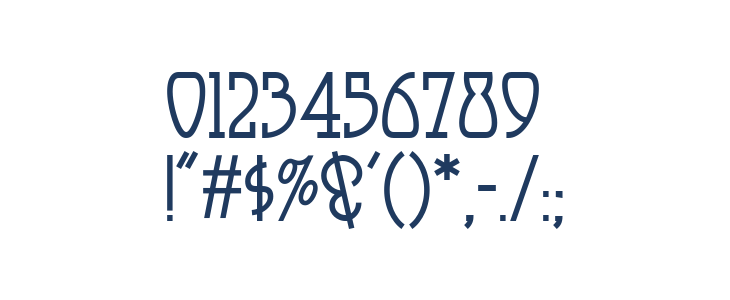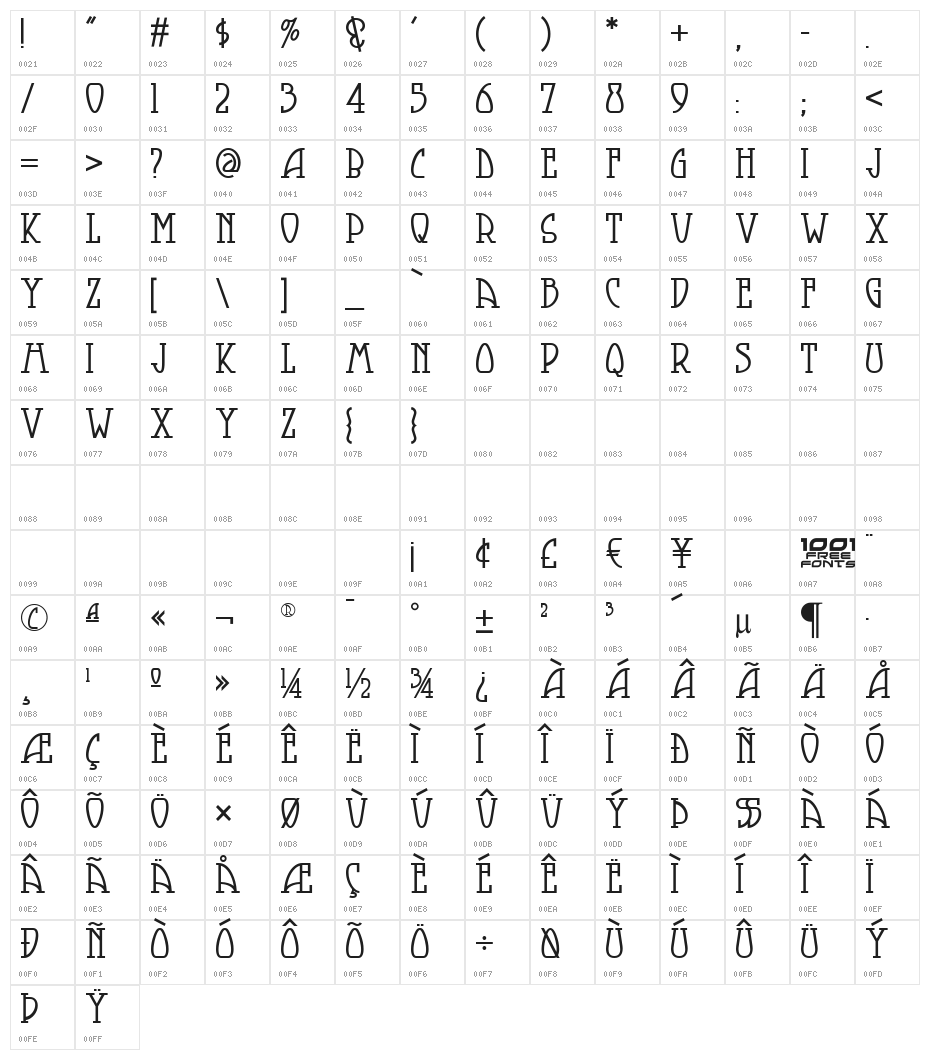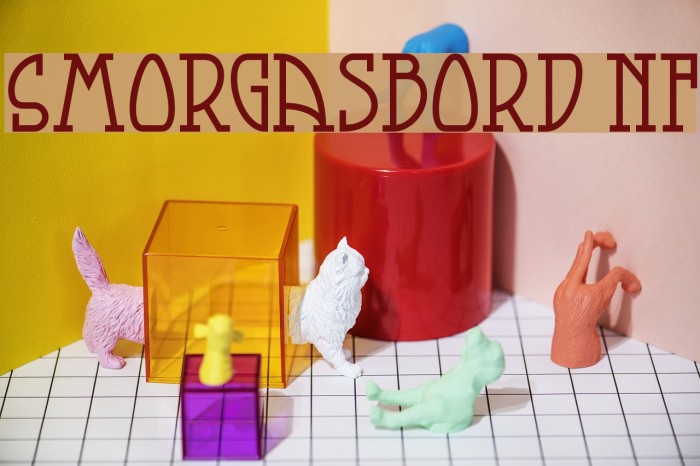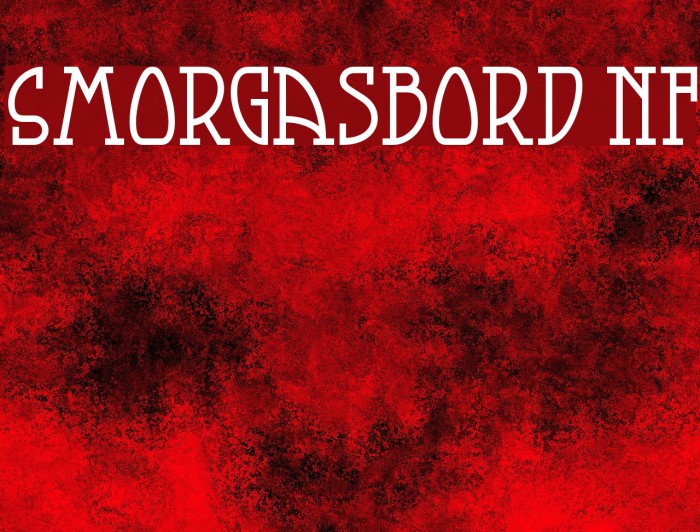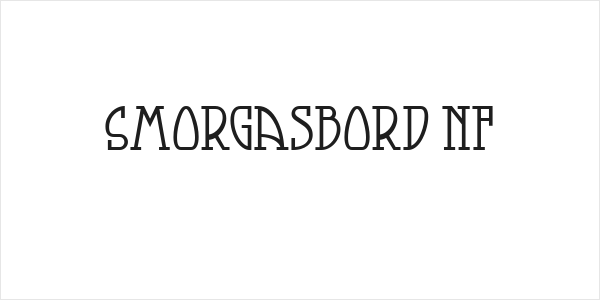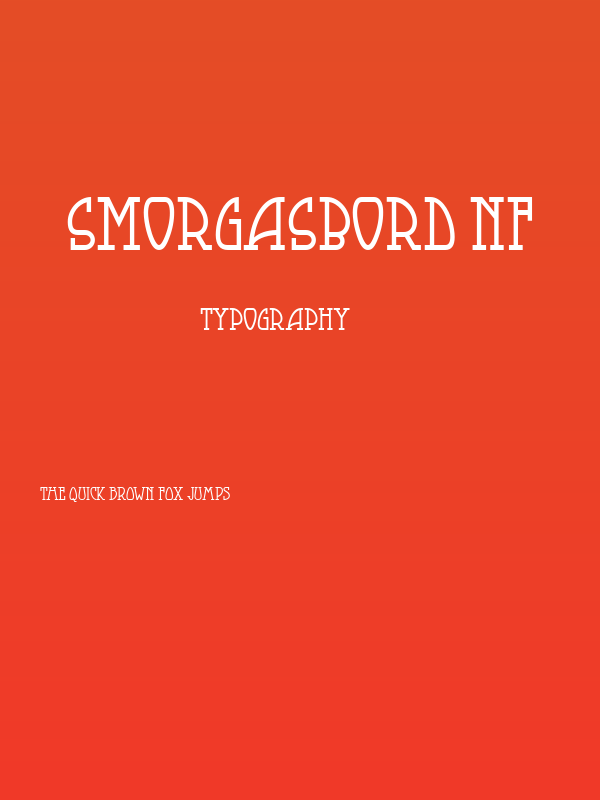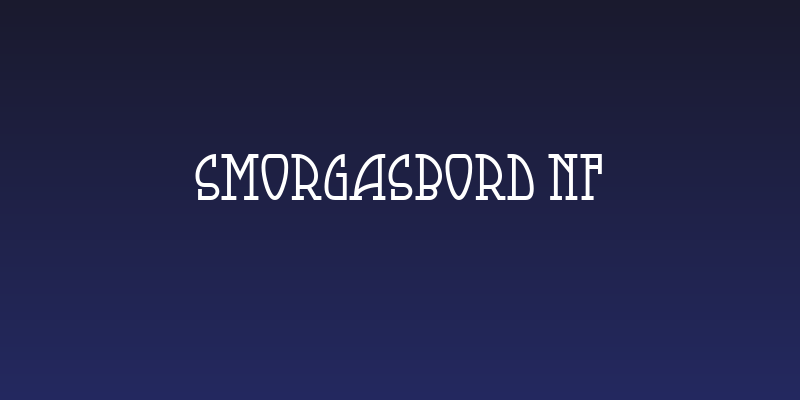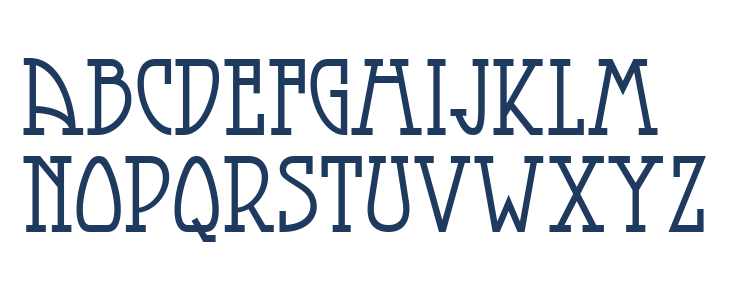
Smorgasbord NF Font
Smorgasbord NF Description
This font features a unique blend of geometric and decorative elements, characterized by its bold and angular letterforms. The uppercase letters exhibit a distinct style with sharp angles and a slight curvature, creating a dynamic and eye-catching appearance. The lowercase letters maintain a consistent design, complementing the uppercase with their own angular flair. Numbers are bold and clear, ensuring readability while maintaining the font's overall aesthetic. Special characters are designed with the same attention to detail, providing a cohesive look across all glyphs. The font's structure is both modern and vintage, making it versatile for various design applications.
| Overall Style | Modern, Vintage |
| Proposed Projects | Ideal for branding, poster design, headlines, and any project requiring a bold and distinctive typeface. |